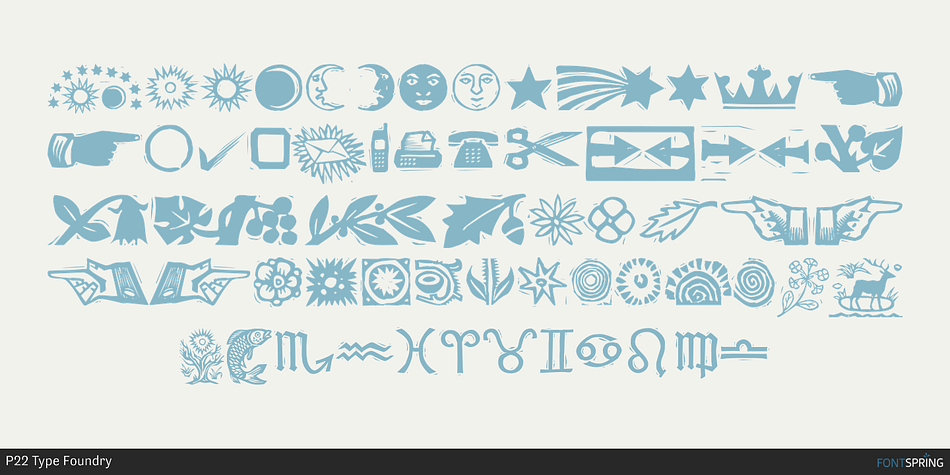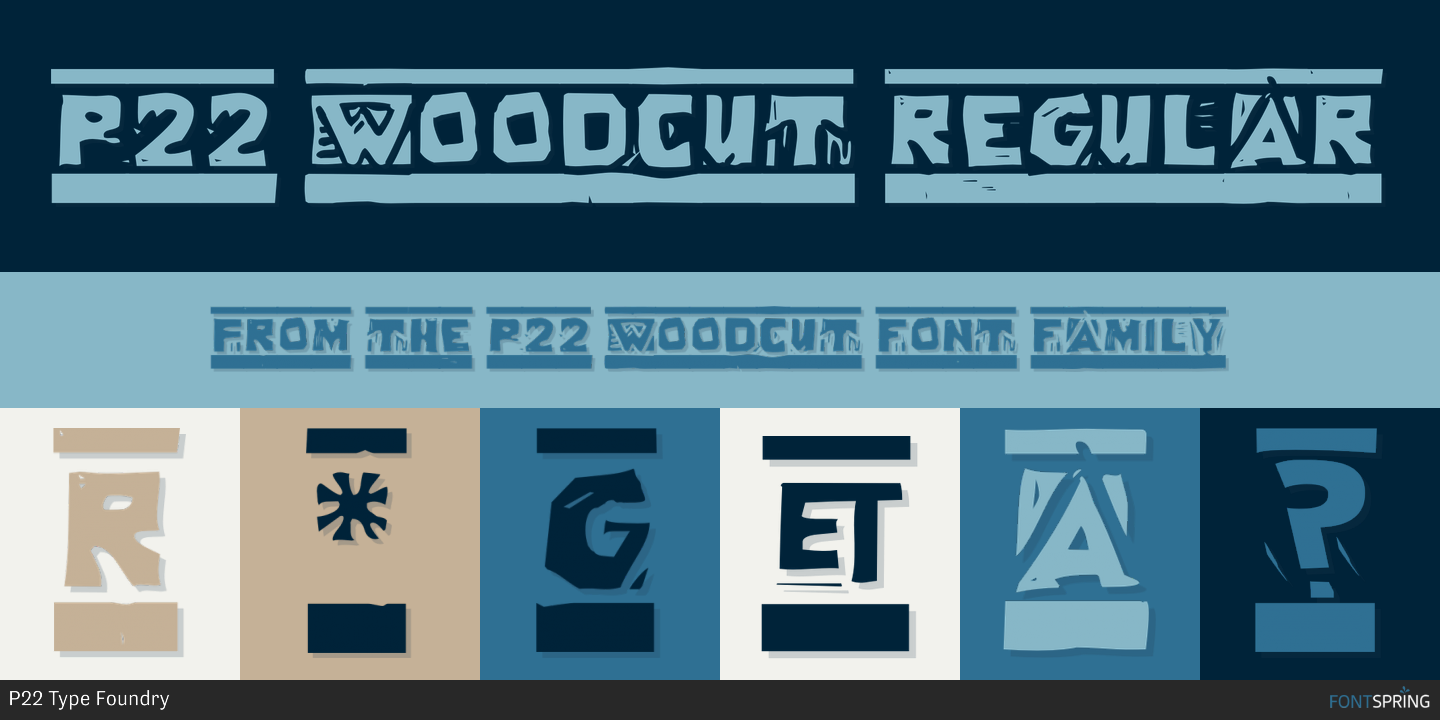
P22 Woodcut
P22 Woodcut is a multiple classification font family. This typeface has three styles and was published by P22 Type Foundry.
P22 Woodcut features the look of letters carved out artists’ printing blocks, as seen in the Expressionist woodcuts of Heckel, Schiele, Kirchner and Munch.
P22 Woodcut Sans has the exact same spacing as Woodcut, but is featured without the distinctive top and bottom bracket lines.
P22 Woodcut Extras is a collection of 64 decorative embellishments designed to complement the Woodcut fonts or to be used with other fonts. Modern “dingbat” imagery has also been integrated into this set which includes ancient symbols and a sampling of useful illustrations.